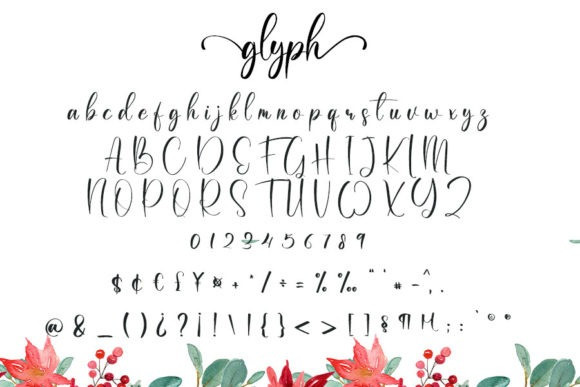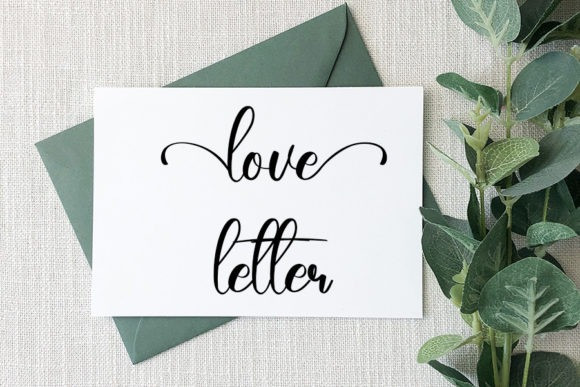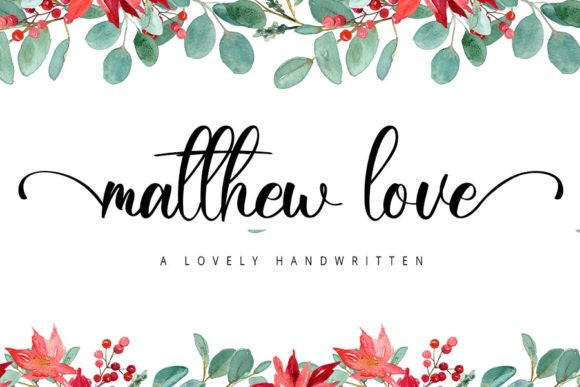
Matthew Love Font
Matthew Love Script Font is a lovely script font featuring charming, playful characters that seem to dance along the baseline. This font is PUA encoded which means you can access all glyphs and swashes with ease!